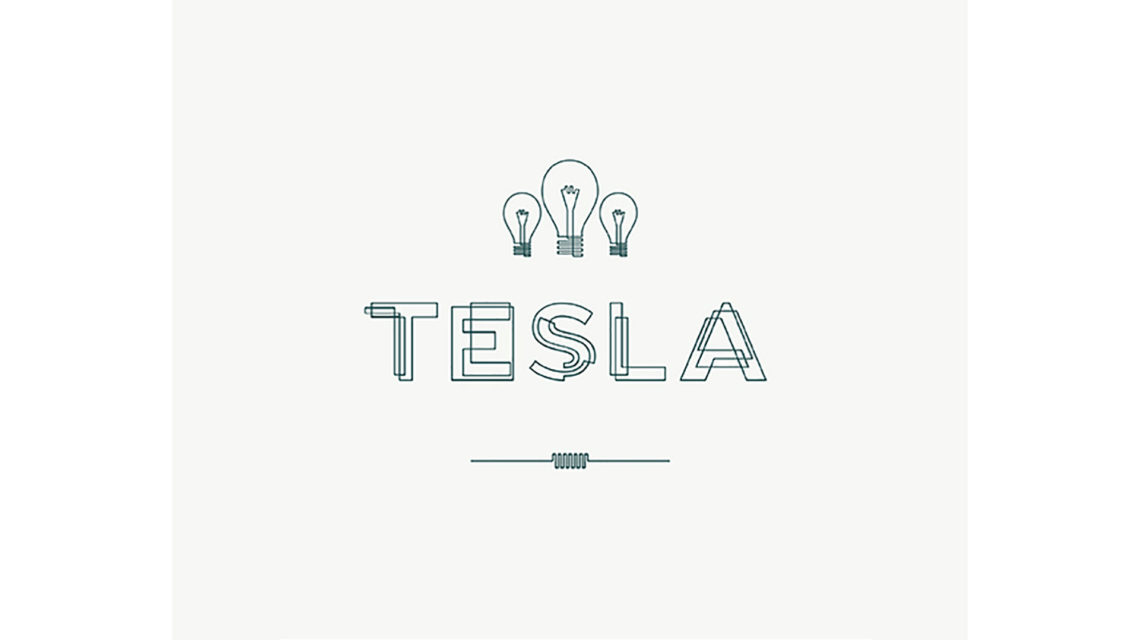
Filament Font Friday
Tesla Font, a Free Font
“The inspiration for this typeface was found in the circuitry of lightbulb filament and wiring intricately crossing paths.”